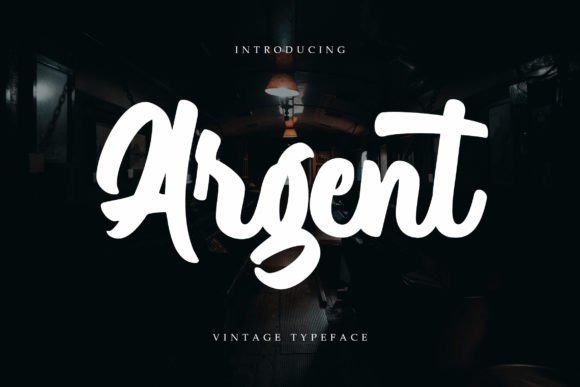
In a world where creativity reigns, let Argent Font enchant your artistic vision, turning every stroke into a masterpiece. Experience the exquisite craftsmanship of this script font, meticulously designed to capture the essence of elegance. Whether you seek inspiration for captivating Instagram posts, or desire to add a touch of artistry to your DIY projects, Argent Font is your gateway to transforming ideas into tangible works of art.
Immerse yourself in the boundless possibilities of Argent Font, a script that dances across the digital canvas with grace and fluidity. Its delicate curves and flourishes evoke a sense of timeless beauty, while its versatility adapts seamlessly to a multitude of creative endeavors. Unleash your imagination and let Argent Font guide you through the realm of artistic expression, where every letter becomes a brushstroke in your creative symphony.
With Argent Font, elevate your Instagram presence to new heights. Its captivating charm will cast a spell on your followers, drawing them into the captivating world you create. Transform your posts into visual feasts, where words dance in perfect harmony with captivating imagery. Whether you're sharing travelogues, fashion finds, or simply your daily musings, Argent Font will add a touch of sophistication and allure that sets your content apart.
Embark on a creative journey with Argent Font, where art knows no bounds. Its versatility extends from digital masterpieces to tangible creations. Personalize greeting cards, invitations, or home decor with the unique touch of Argent Font. Let it flow effortlessly across canvas prints, adding a touch of whimsy to your living space. The possibilities are endless, limited only by the depths of your imagination.
Argent Font is more than just a collection of letters; it's an invitation to unleash your inner artist and paint the world with your creativity. Embrace the magic of this enchanting script, and watch as your creative ideas transform into stunning works of art. Download Argent Font today and embark on a journey where every stroke tells a story.